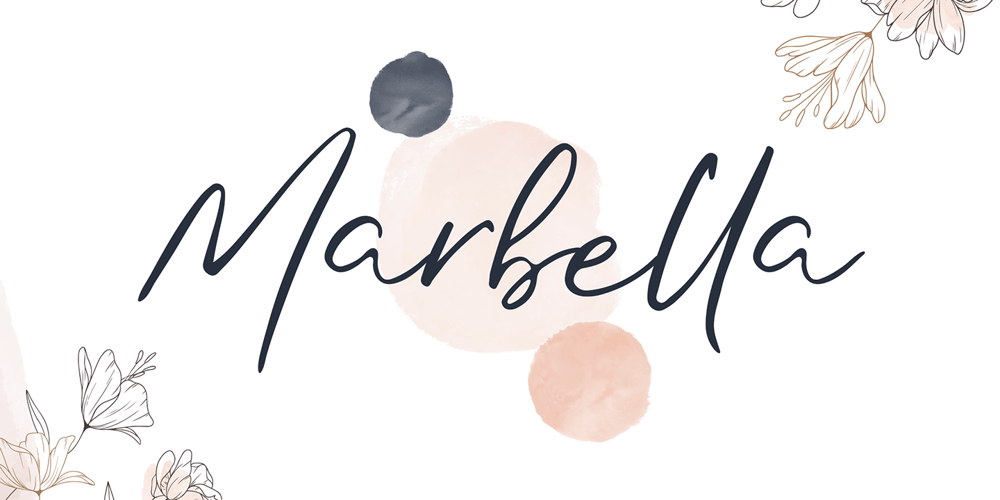
Marbella VP
Marbella VP Font Family was designed by Vladimir Fedotov, Plamen Petrov and published by VP Creative Shop. Marbella VP contains 3 styles and family package options. Introducing Marbella – Signature script – 3 weightsMarbella is organic and casual script loaded with 3 fonts, ligature glyphs and 95 languages support